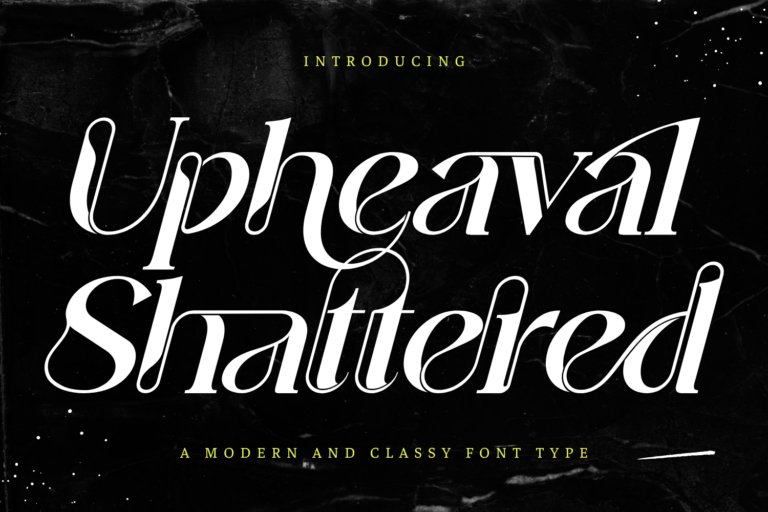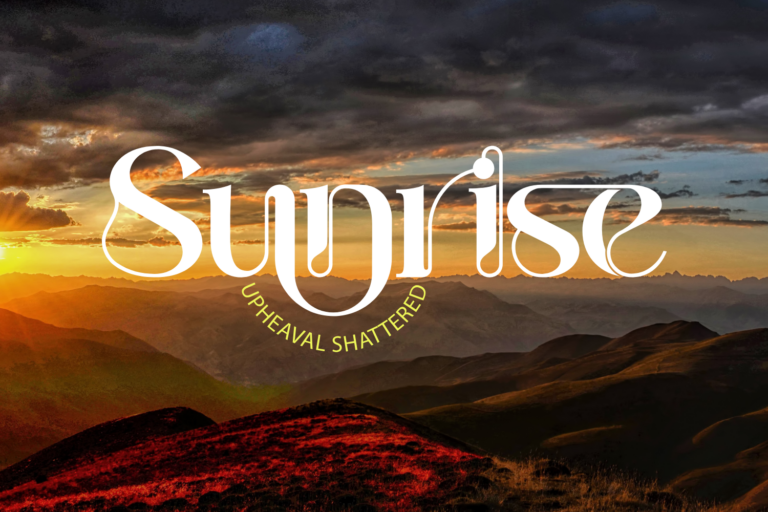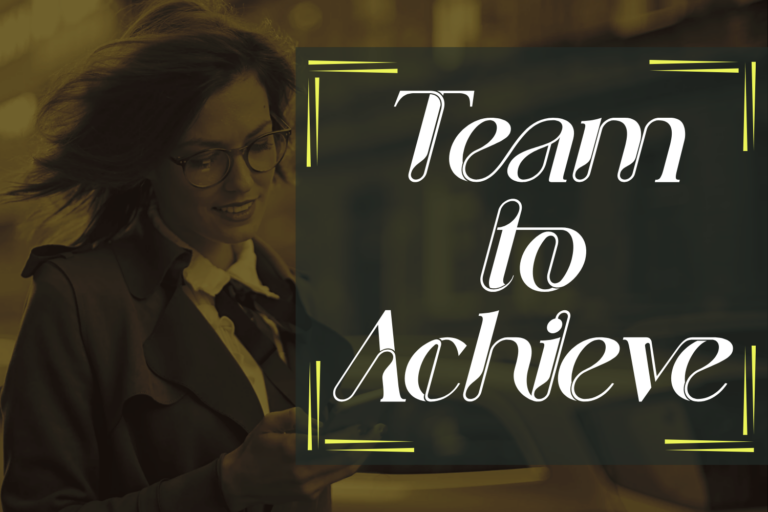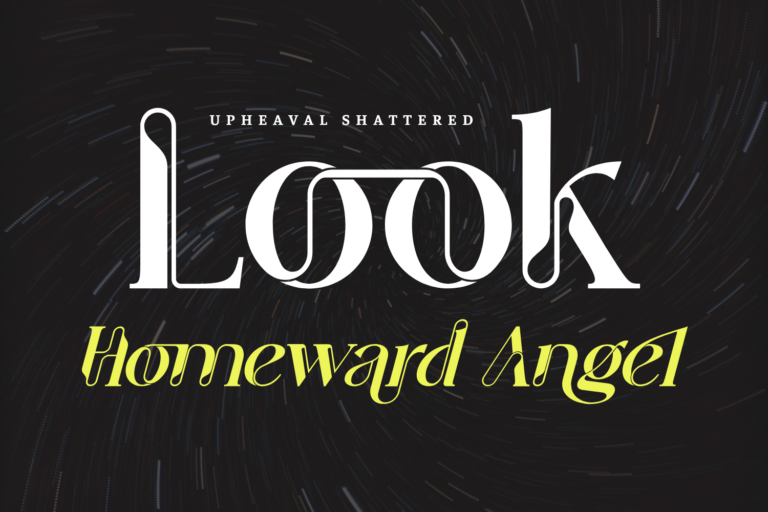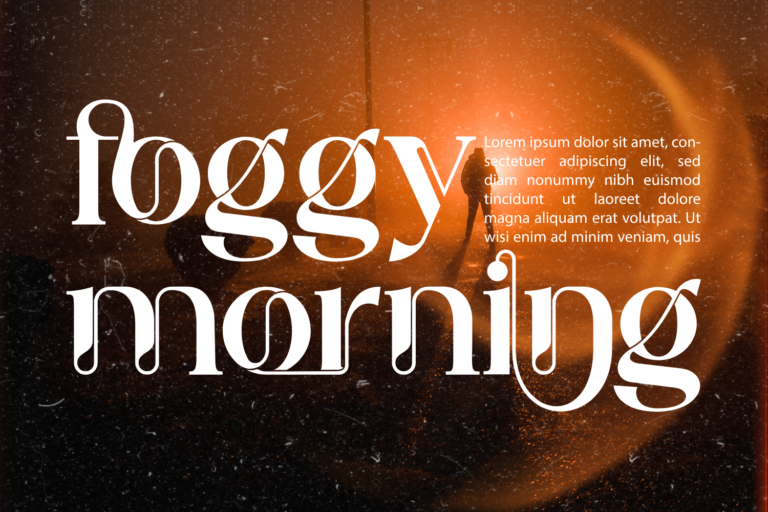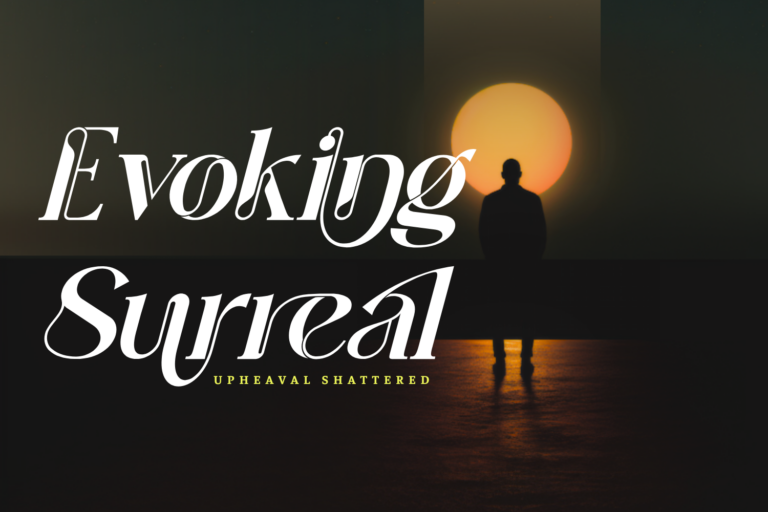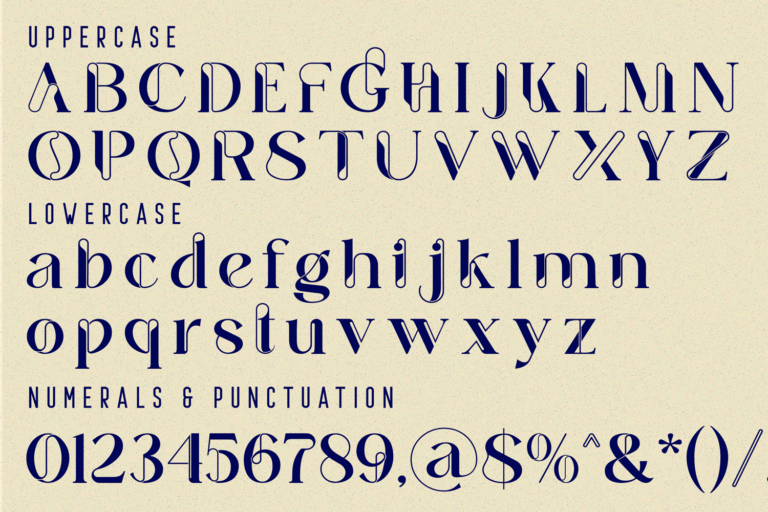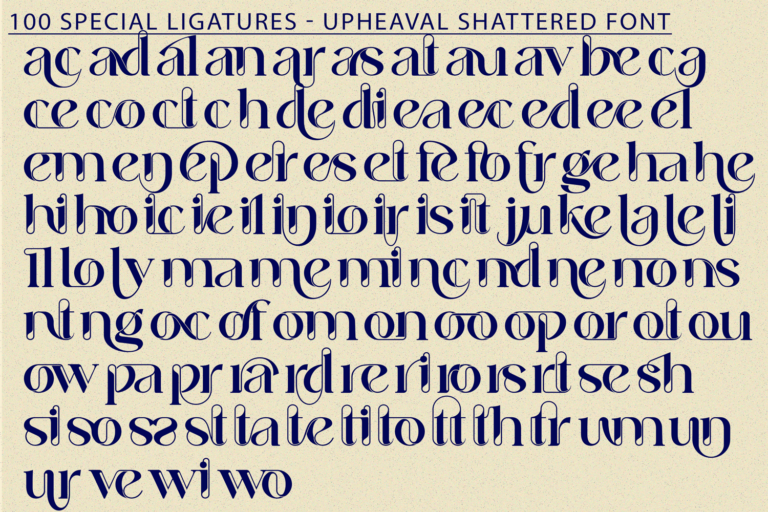
Upheaval Shattered – Unique Font – An Expressive Serif Display Font, a dramatic and elegant high-contrast serif display font that blends graceful curves with razor-sharp precision. Its sweeping terminals, fluid ligatures, and refined slant give your typography a sense of movement, sophistication, and confidence.
Perfect for fashion branding, editorial headlines, wedding design, album covers, and any project that calls for a bold artistic presence.
Features:
• Full Uppercase & Lowercase Letters
• Over 100 Special Ligatures and Stylistic Alternates
• Complete Numerals & Punctuation
• Accented Characters for multilingual support
ac ad al an ar as at au av be ca ce ch co ct de di ea ec ed ee el em en ep er es et fe fo fr ge ha he hi ho ie ic il in io ir is it ju ke la le li ll lo ly ma me mi nc nd ne ng no nt ns oc of om on oo op or ot ou ow pa pr ra rd re ri ro rs rt se sh si so ss st ta te th ti to tr tt um un ur ve wi wo